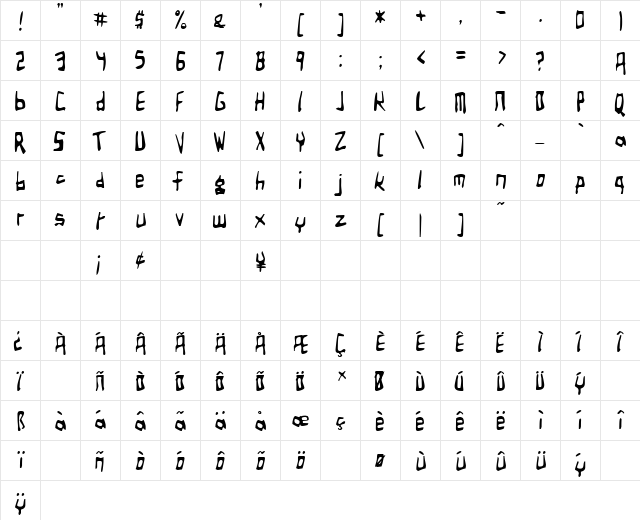
Birdland Aeroplane Regular
Design Context for Birdland Aeroplane Typeface
Birdland Aeroplane is a composed and adaptable typeface that performs quietly and consistently across a wide range of design contexts.